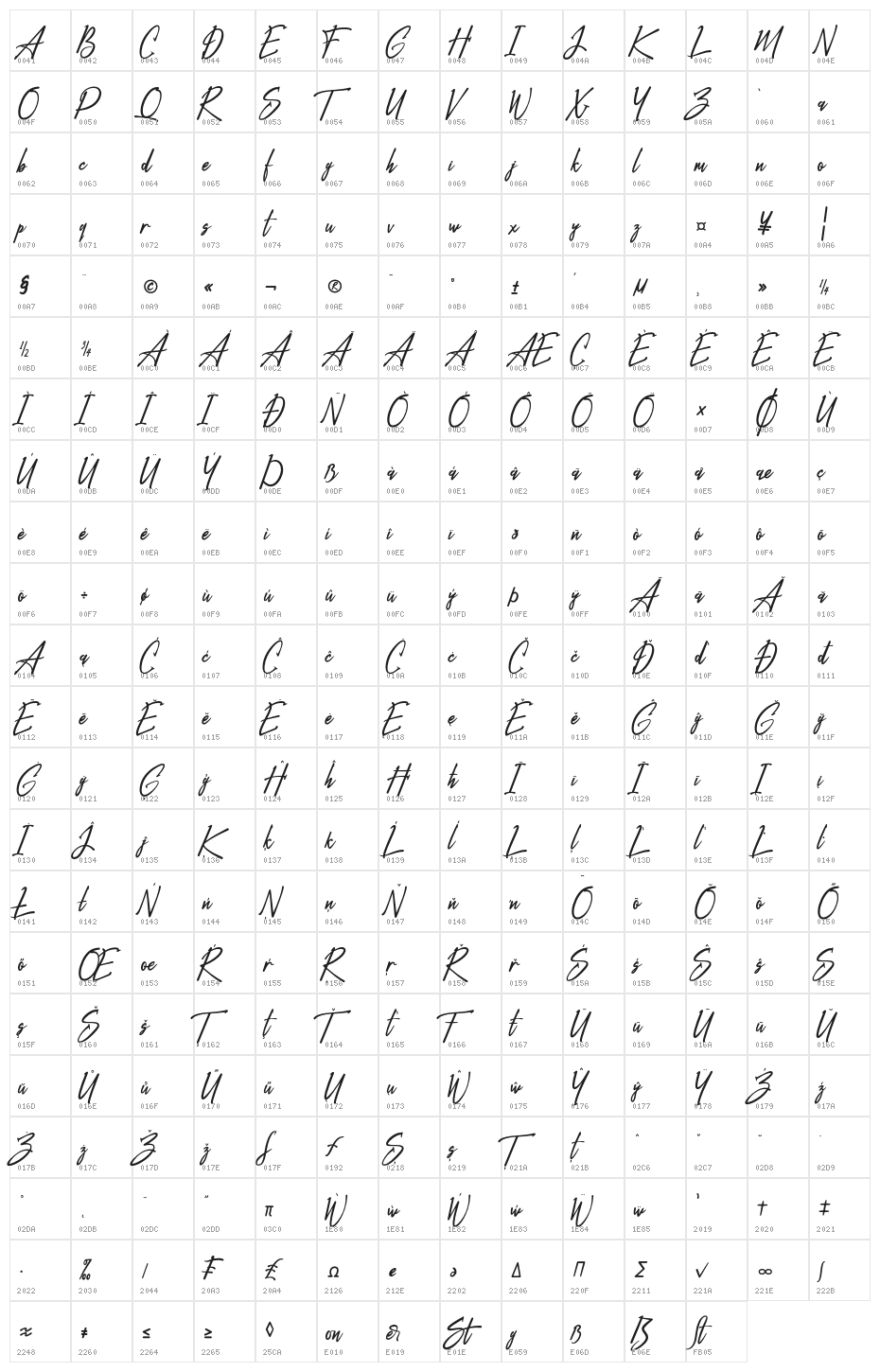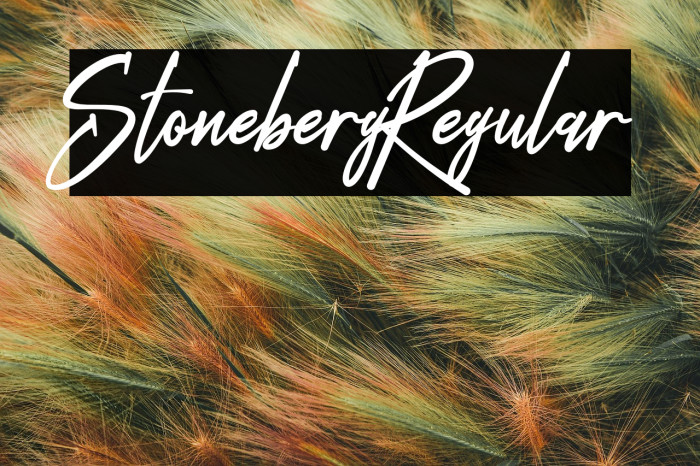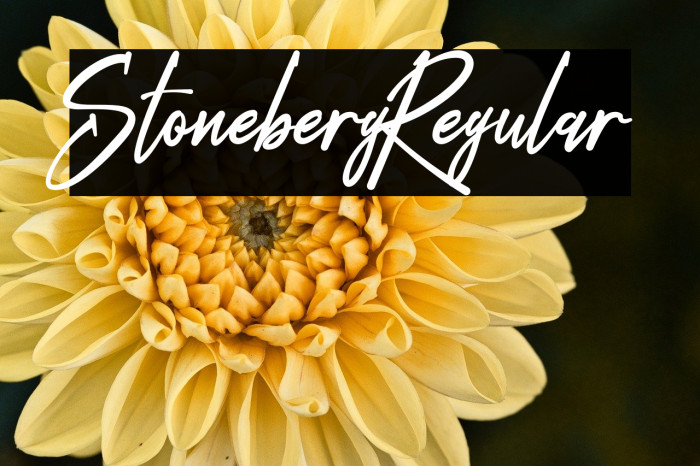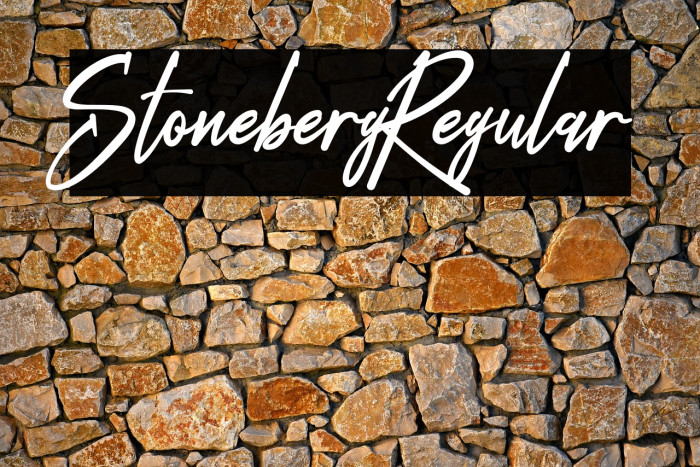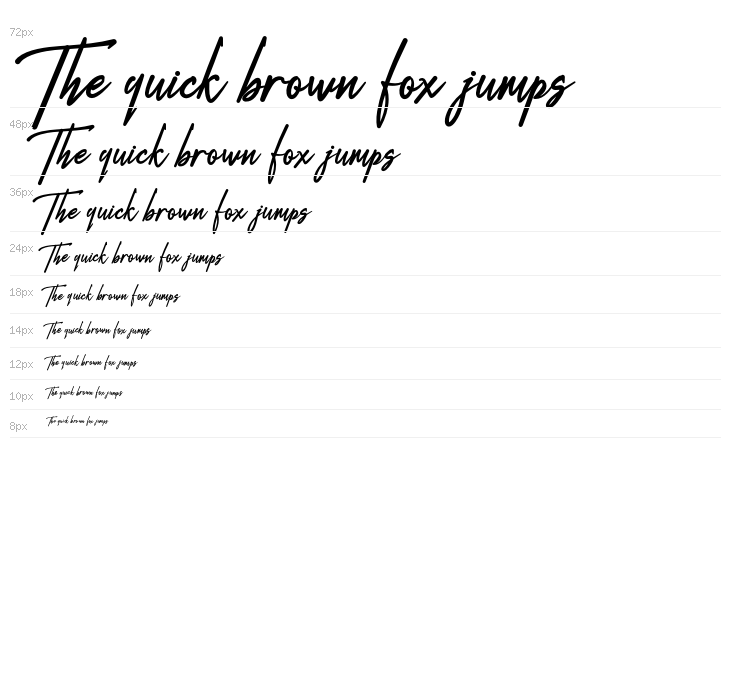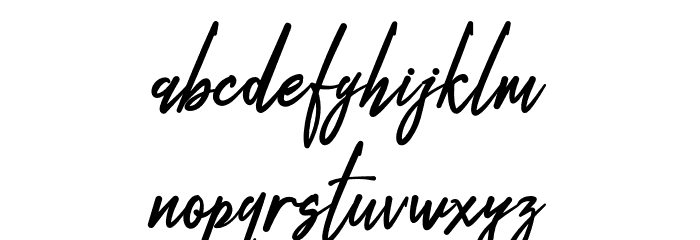
Stoneberg-Regular Font
Stoneberg-Regular Description
This font exudes a dynamic and energetic style, characterized by its bold and flowing script. The letters are interconnected with a smooth, cursive flair, giving it a handwritten appearance. The uppercase letters are particularly striking, with exaggerated loops and swashes that add a sense of movement and elegance. The lowercase letters maintain a consistent flow, complementing the uppercase with their own subtle curves. The numbers and special characters are crafted with the same attention to detail, ensuring a cohesive look across all elements. This font is perfect for projects that require a personal touch, such as invitations, greeting cards, or branding materials that aim to convey creativity and sophistication.
| Proposed Projects | Ideal for invitations, greeting cards, branding, and creative projects. |